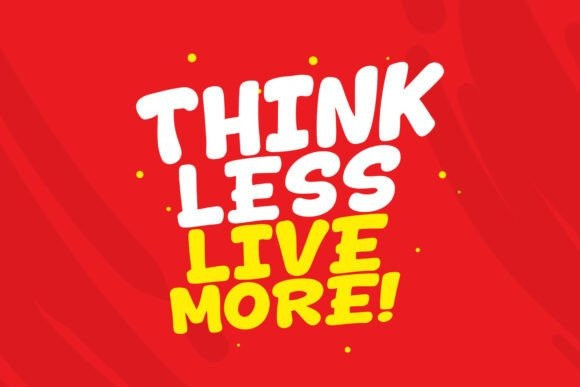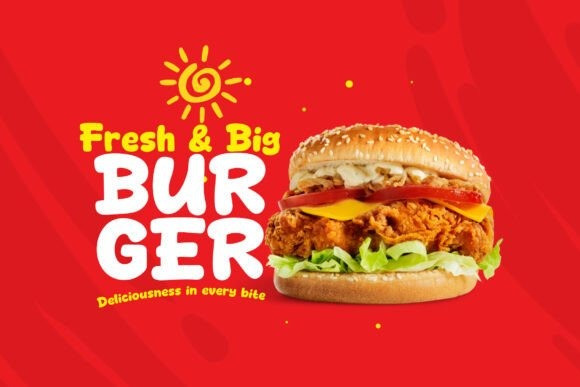
Magic Red Font
Magic Red Font is a wonderfully cute and chunky display font that radiates playful energy, making it the perfect typeface for bringing instant happiness and charm to any project.
This delightful bubble display font features extra-thick, rounded glyphs with a friendly, bouncy appearance, giving the Magic Red font a highly approachable and childlike aesthetic. It’s the ideal choice for eye-catching titles on children’s books, vibrant party invitations, kindergarten educational materials, and playful product packaging.
The strong, solid shapes of the Magic Red font ensure maximum visibility, making it excellent for large headers, posters, and attention-grabbing social media graphics. Use this unique typeface to convey fun, excitement, and a touch of magical whimsy across all your creative endeavors.